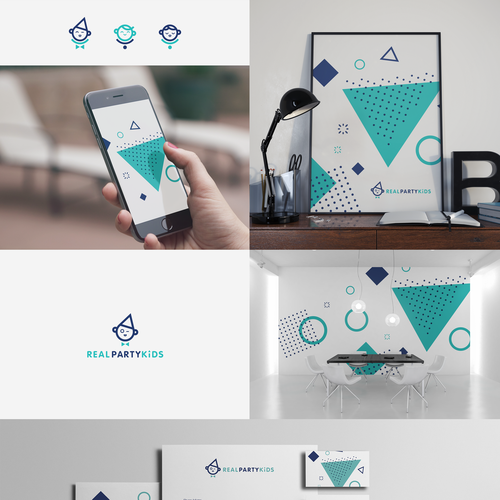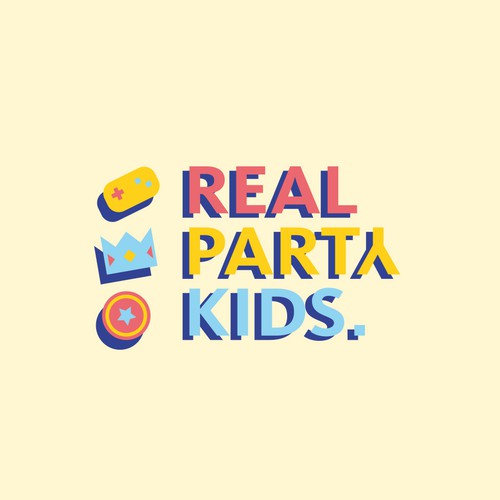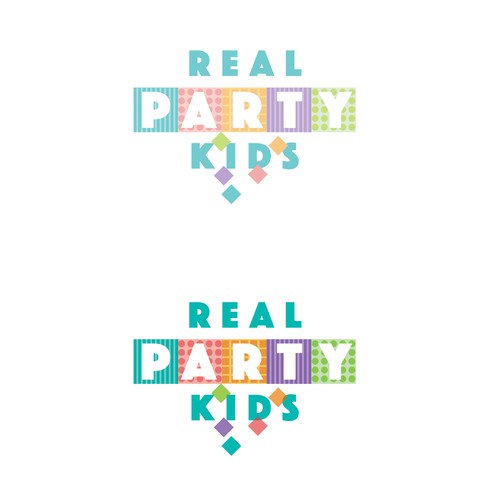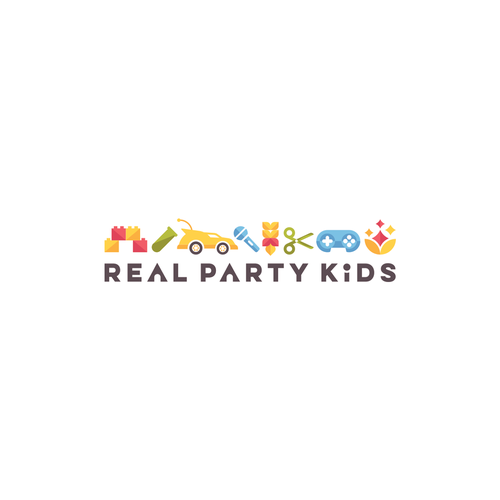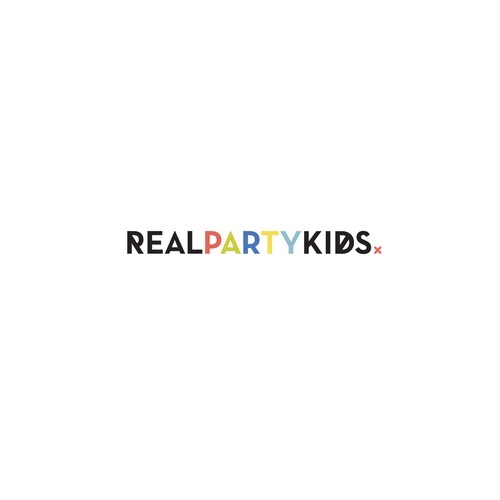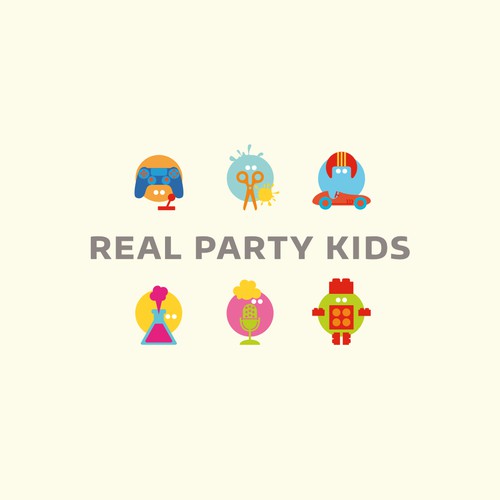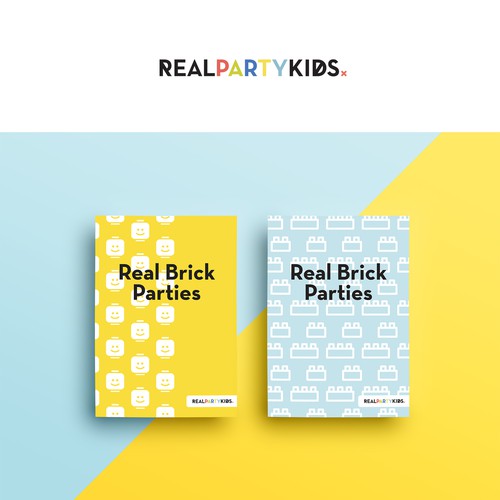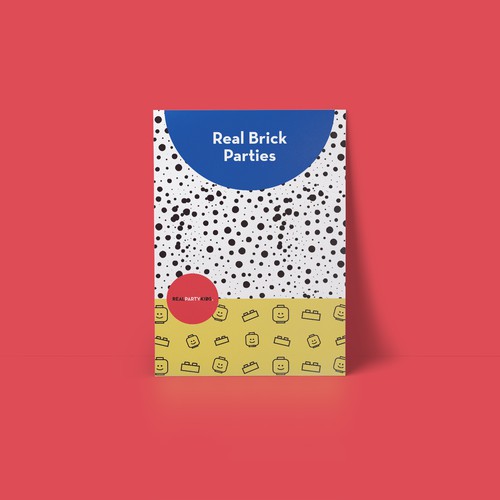
RealPartyKids
We are a new children's entertainment company, I have a second business called http://www.claphandies.com take a look for reference. The new company will be offering Parties for children aged 5 to 11. While the identity needs to appeal to the children, it also very much needs to appeal to the parents. Please see my mood board and the design inspiration below, the system must be modern and clean.
Real Party Kids
I am open to colour suggestions
GOAL: We are looking to develop unique font based logo with supporting unique patterns/ design elements to give personality.
Our function is party creation for small humans (children aged 1-12) but mostly we need to appeal to their parents (who book us and pay our bills).
SO ! We want to appear fun, sophisticated, playful and on-trend all at the same time.
STYLE:
• playful
• creative
• vibrant
• stylish yet personable
DESIGNS WE LIKE & WHY:
• style1.jpg - I like the colours and the simple but stylish matching icons
• style2.jpg - I like the colours and the simple but stylish matching icons
• style3.jpg - I like the font and characters and the colours, I like how the characters would appeal to all ages, other characters that I have looked like the monster style are too young to appeal to the 11 year olds
• style4.jpg - I like the cleanness
• style5.jpg - I like the font and the shapes
• style6.jpg - I like the font and the shapes
• style7.jpg - I like the geometrical shapes
• style8.jpg - I like the geometrical shapes
• style9.jpg - I like the font and shapes
• style10.jpg - I like the font and shapes
• style11.jpg - I like the font and shapes
• style12.jpg / style13.jpg - I like the shapes
IDEA:
FONT & PATTERN BASED LOGO:
We like the idea of a cool/ unique font with supporting patterns (~3), that are different from one another but clearly related in style.
The patterns would be used on all our branding but they will double as the social media banners and backgrounds etc. (just to give you insight into how they will be used).
PATTERN IDEAS:
• small illustrations that relate to what we do (tiaras, super hero badges, playstation controller, microphone etc.) that ultimately make up a pattern
• geometric,
• abstract yet nice
• we are open to all ideas !